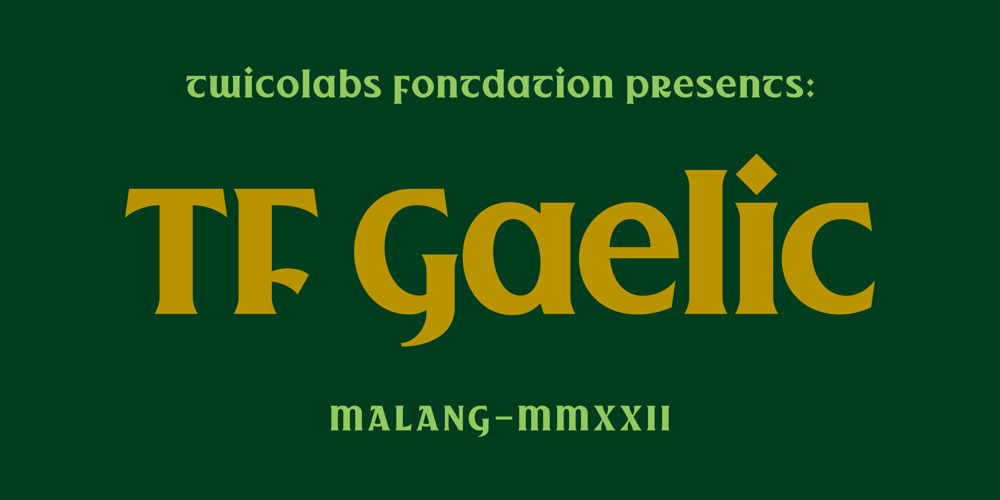
TF Gaelic Font Family was designed by Fahrizal Tawakkal and published by Fontdation. TF Gaelic contains 2 styles and family package options. Introducing TF Gaelic, a vintage serif that heavily inluenced by the form of Gaelic letters. We incorporate some twist on the letters to keep this font relevant to todays designing needs.